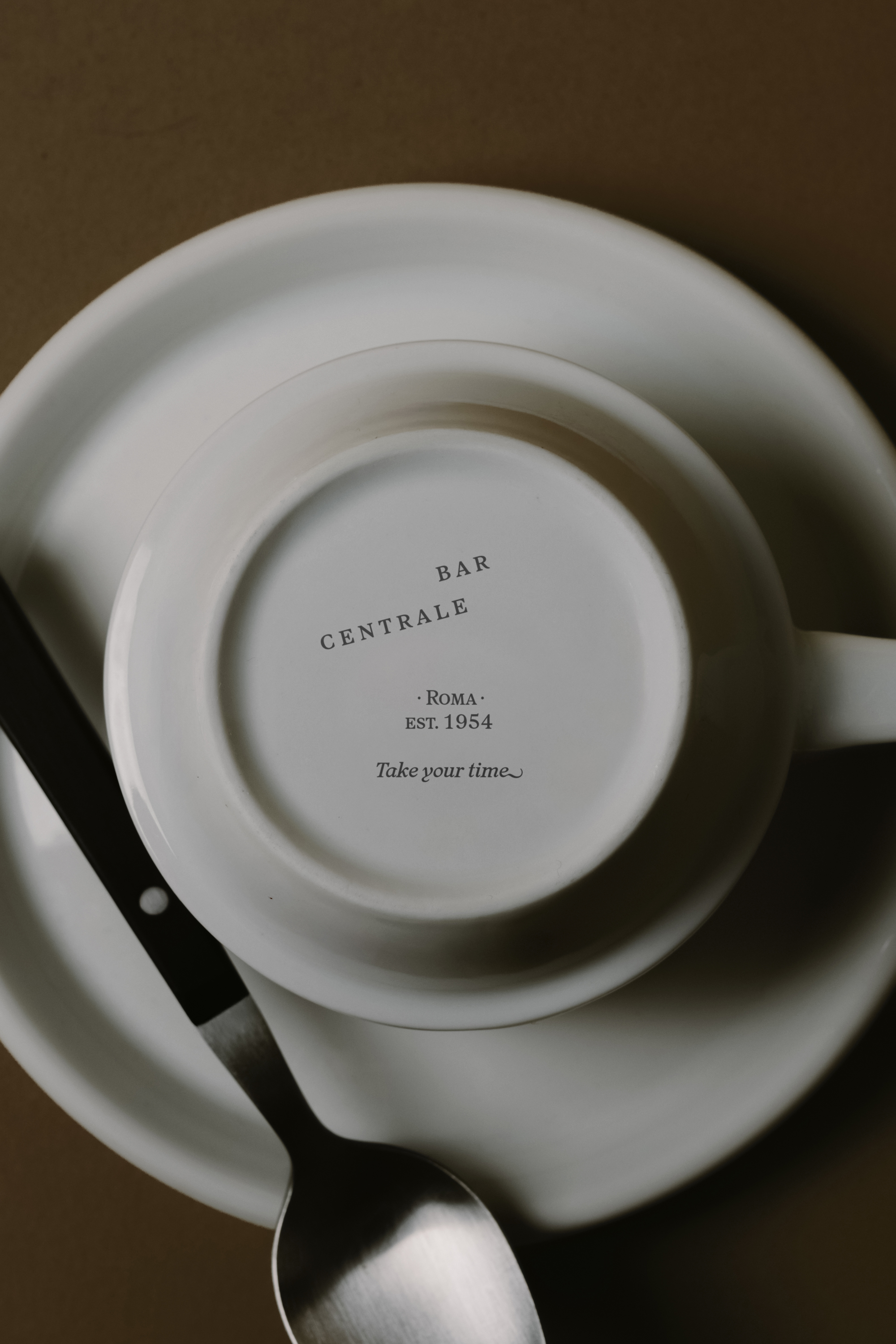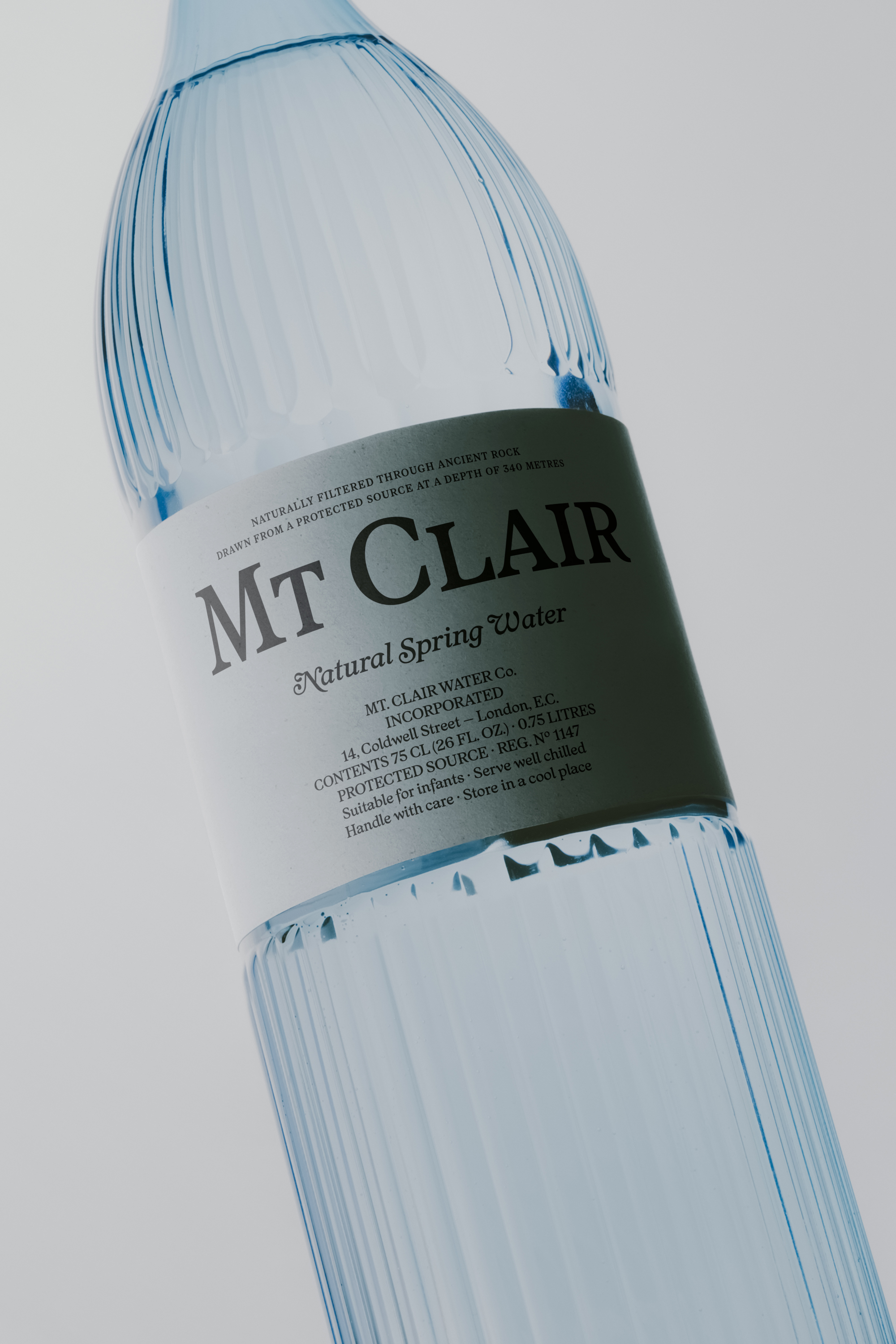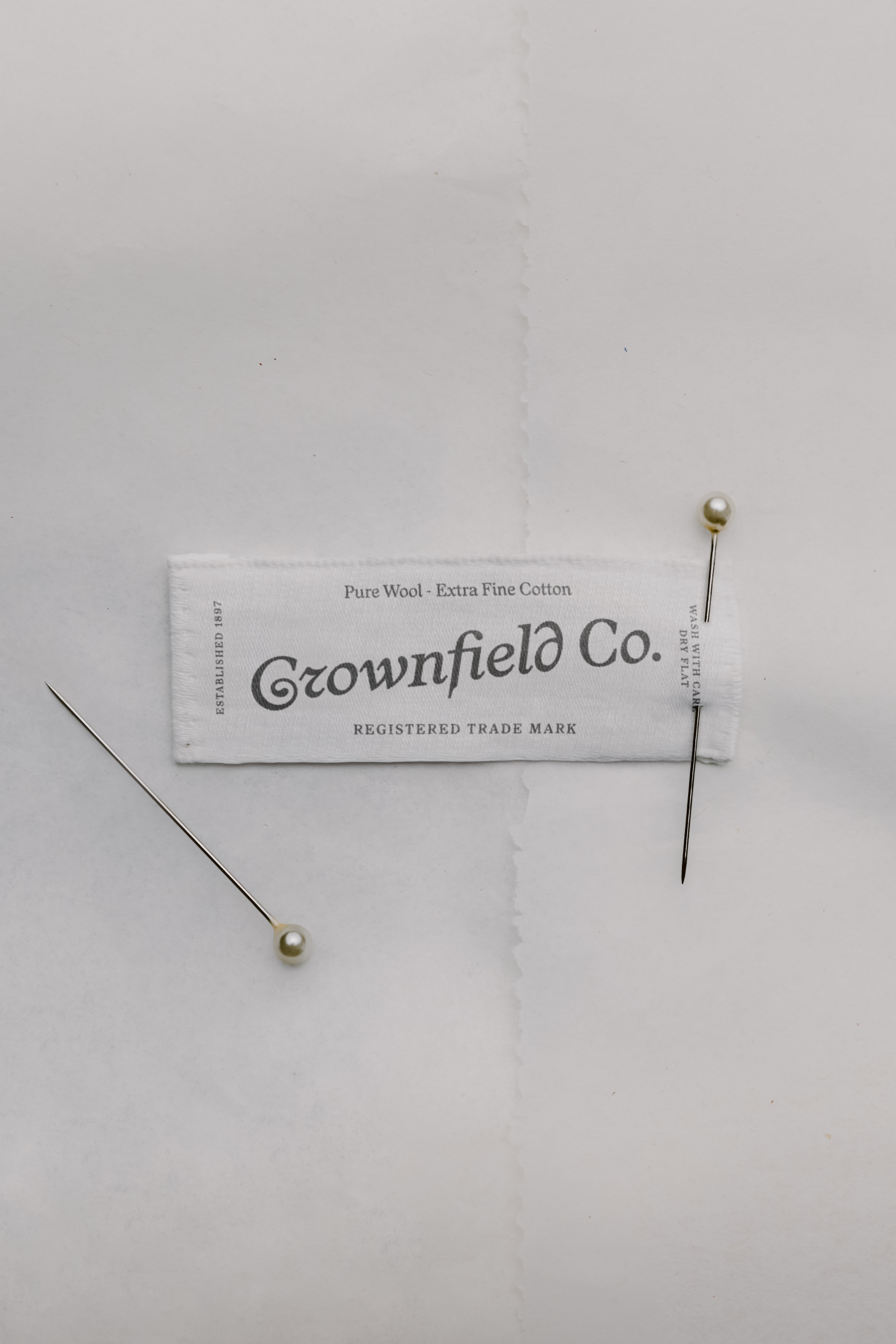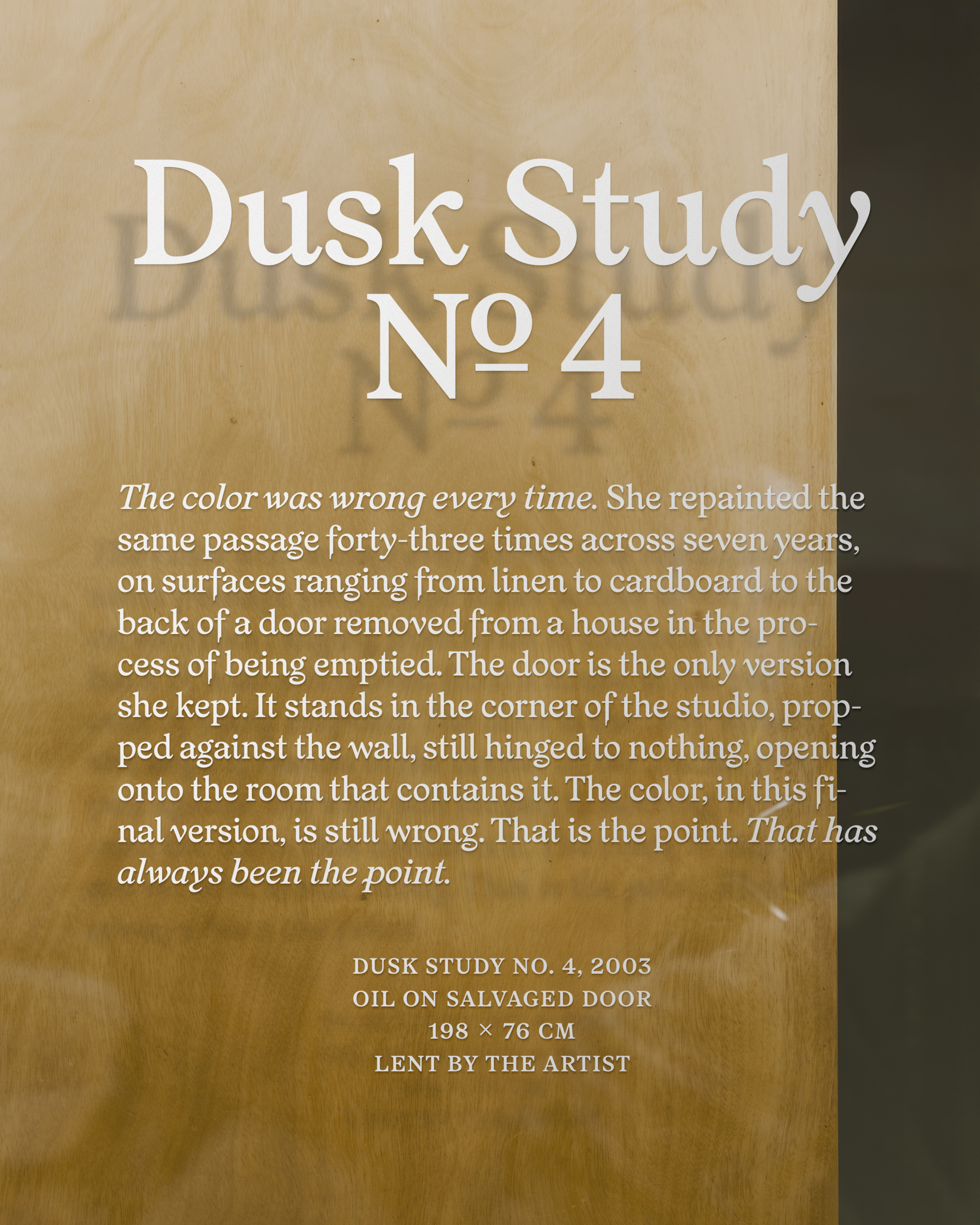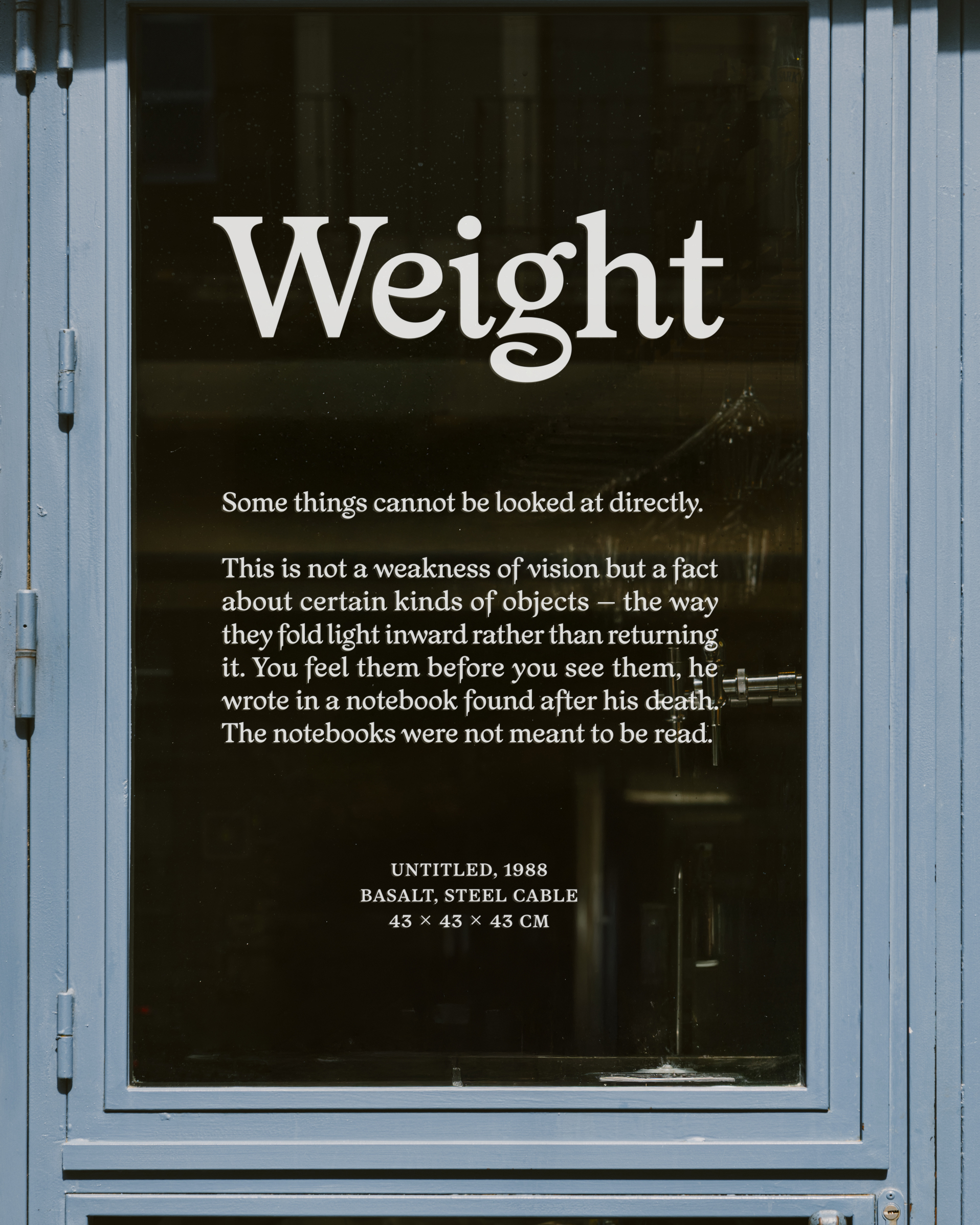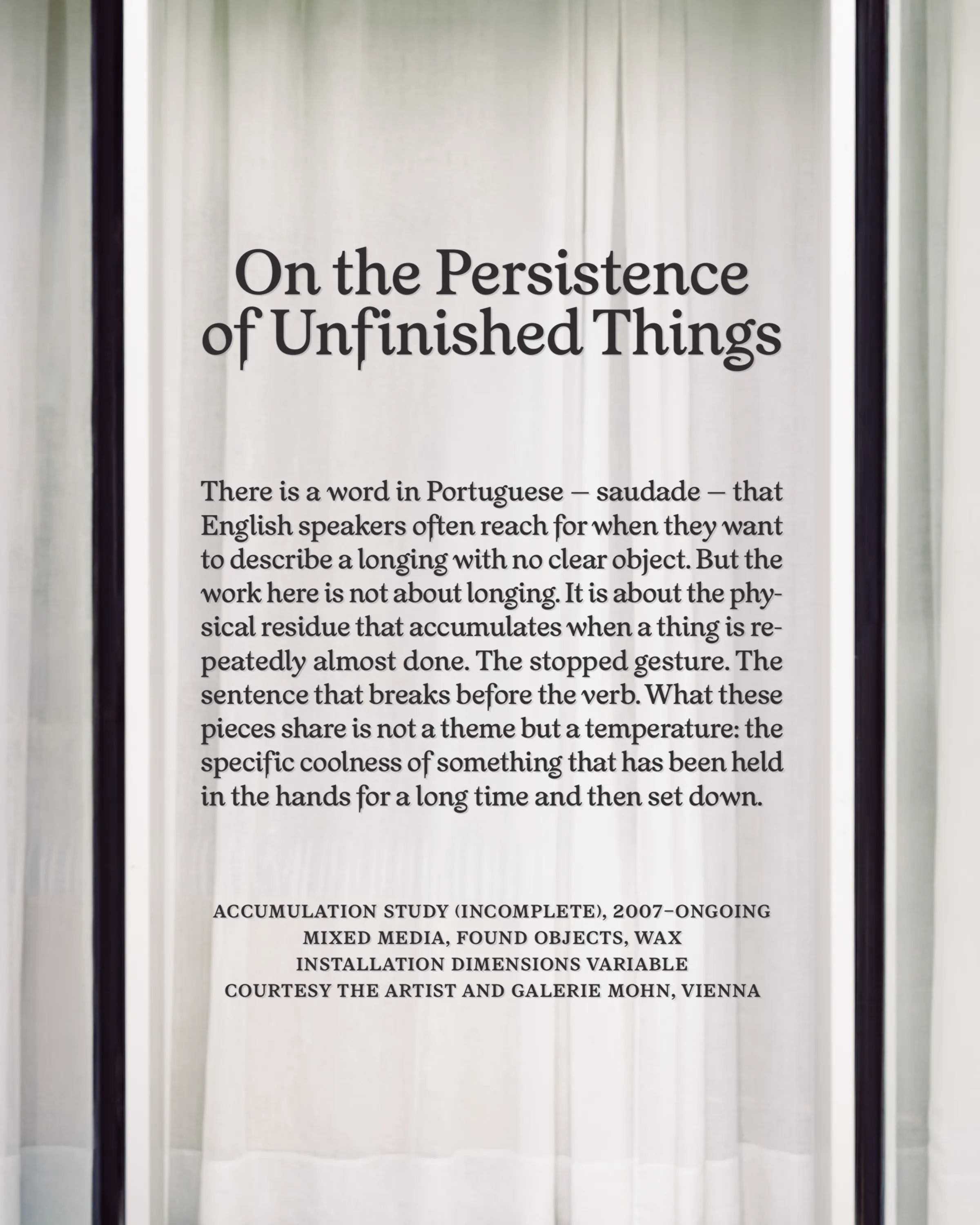
Originally designed in 2012 for the publishing house Le Feu Sacré, Chardon draws freely from the Elzevir of the Beaudoire & Cie Fonderie générale des caractères français et étrangers. It is attributed to Charles Beaudoire but largely inspired by the work of his father Théophile, the foundry's former director, who died in 1903. Starting from the classical silhouette of the Elzevir — archetype of the golden age of Dutch printing — Beaudoire altered its terminals, making them more calligraphic and organic. In an aggregation of styles typical of the nineteenth century, his design evokes the forms of Art Nouveau, to which he added fanciful interpretations of older styles. This is particularly visible in the alternate characters r and s, whose forms draw from the French Ronde script of the seventeenth century. Chardon is a project of updating and displacement of these forms, typical of a specific era and milieu: that of the book and publishing in France at the dawn of the twentieth century. Bolder, more robust and rationalized, it has been adapted to contemporary uses and media. Chardon also features numerous OpenType functions and possibilities which, in combination, allow the appearance of the text to be varied and its ornamental dimension to be modulated.
Designed by Thomas Bizzarri and Alain Rodriguez. Development and mastering by Solenn Bordeau at OTT.